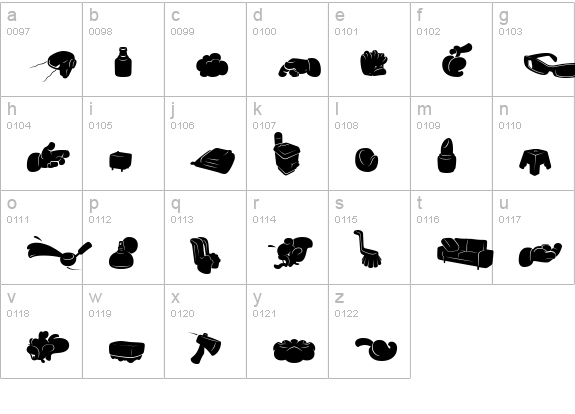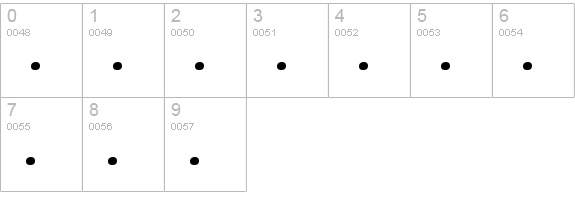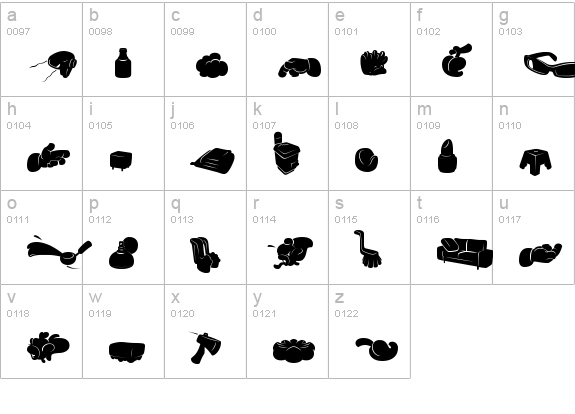
SaunaDingbats-Solo Font Details
Introducing SaunaDingbats-Solo, a captivating and whimsical font that will transport you to a world of playful design possibilities. This font is the epitome of fun, with its unique and intricate dingbat characters that are sure to catch the eye and ignite the imagination. With SaunaDingbats-Solo, you can effortlessly add a touch of charm and personality to your designs. Whether you're creating invitations, posters, logos, or any other creative project, this font will infuse your work with a delightful sense of joy and wonder. One of the best things about SaunaDingbats-Solo is that it is free! That's right, you can easily download this font at FontsMarket.com and start using it in your projects right away. No need to worry about breaking the bank or compromising on quality – this font offers both, without any cost to you. The versatility of SaunaDingbats-Solo is another feature that sets it apart. It can be used on its own to create stunning standalone designs, or it can be paired with other fonts to add a touch of whimsy and playfulness. The possibilities are endless, and the only limit is your own imagination. Don't miss out on the opportunity to add SaunaDingbats-Solo to your font collection. Download it for free at FontsMarket.com and unlock a world of creative possibilities. Whether you're a professional designer or a casual enthusiast, this font is sure to become a cherished addition to your toolkit.